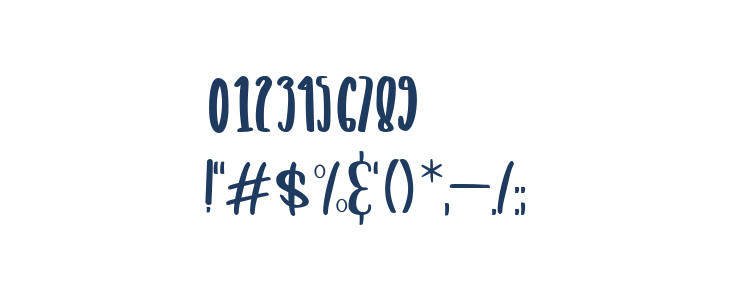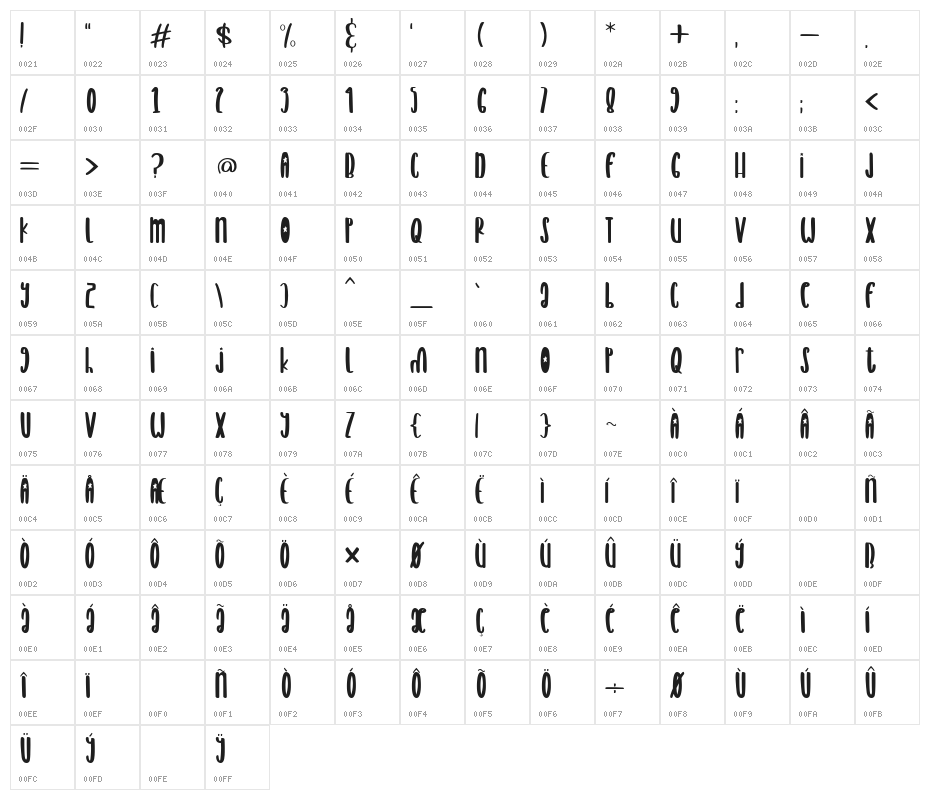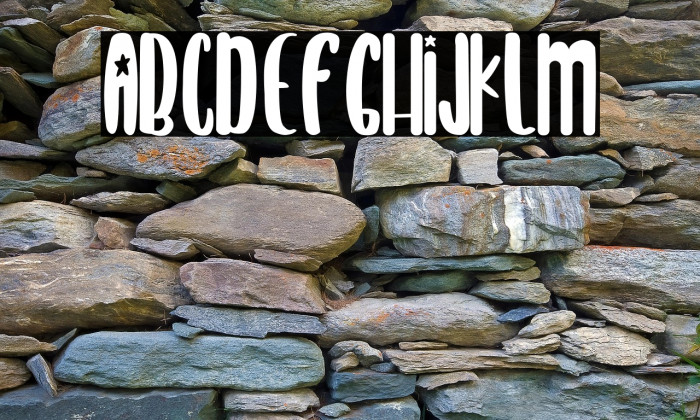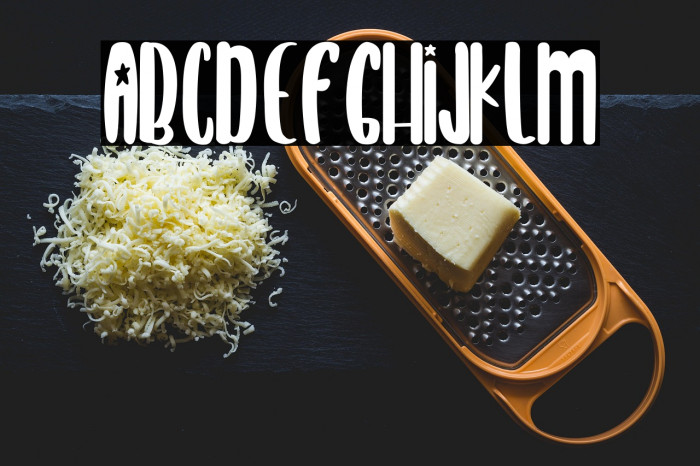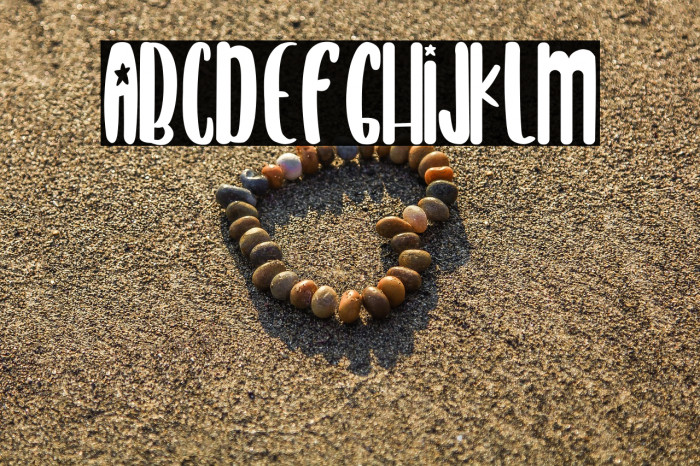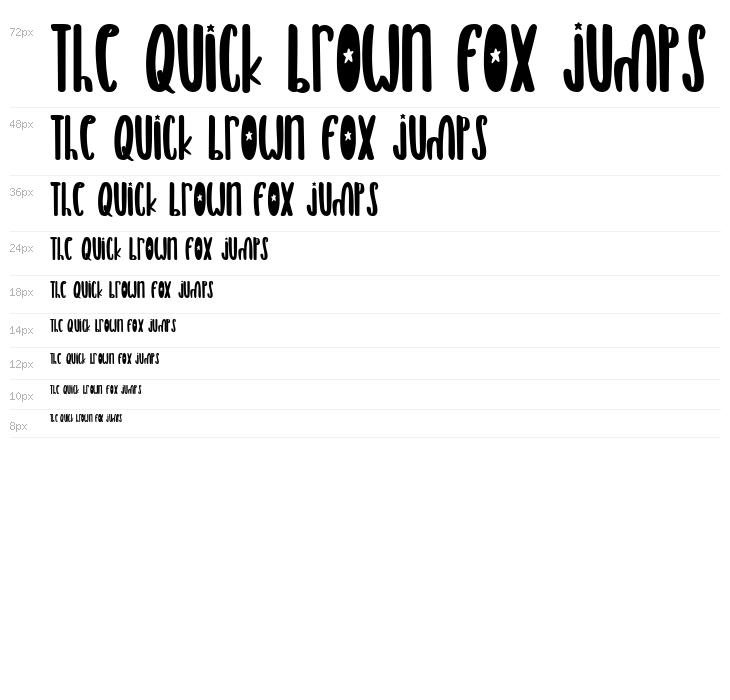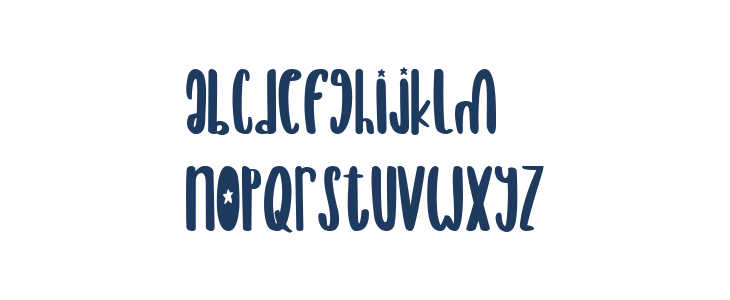
American Kids Font
American Kids Description
This playful and whimsical font features bold, rounded letters with a unique star motif integrated into some of the characters, adding a touch of fun and creativity. The uppercase and lowercase letters maintain a consistent style, with smooth curves and a slightly condensed form, making it visually appealing for children's content. The numbers and special characters follow the same playful design, ensuring a cohesive look across all text elements. The font's distinct style is perfect for projects that aim to capture a youthful and energetic vibe.
| Use Case | Headlines, Logos, Children's content |
| Proposed Projects | Ideal for children's books, educational materials, playful branding, and toy packaging. |